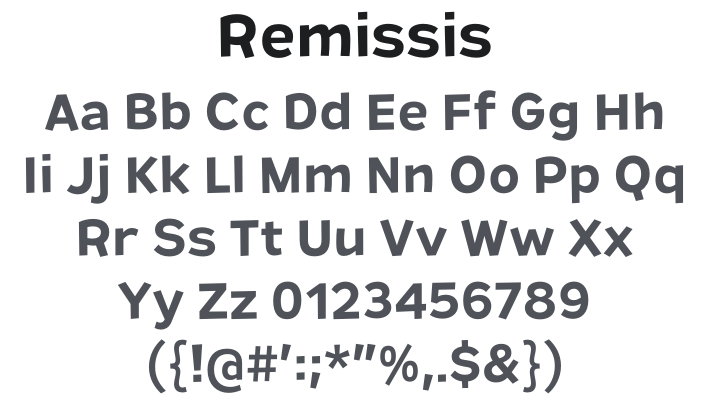
Remissis Font
About Remissis
Remissis is a modern sans-serif with a human pulse; polished, poised, and quietly expressive. Its subtle off-axis strokes and softened geometry lend warmth to clean lines, creating a rhythm that feels effortless in both text and display. Designed for today’s high-resolution world, it reintroduces the near-horizontal nuances long lost to low-res screens, adding refinement that’s more felt than seen.
With seven weights, italics, and broad language support including Greek, Cyrillic, and Vietnamese, Remissis adapts seamlessly across media. From wellness brands and boutique hotels to cultural programs and lifestyle publications, it balances sophistication with approachability...a typeface that looks professional, feels personal, and reads beautifully everywhere.